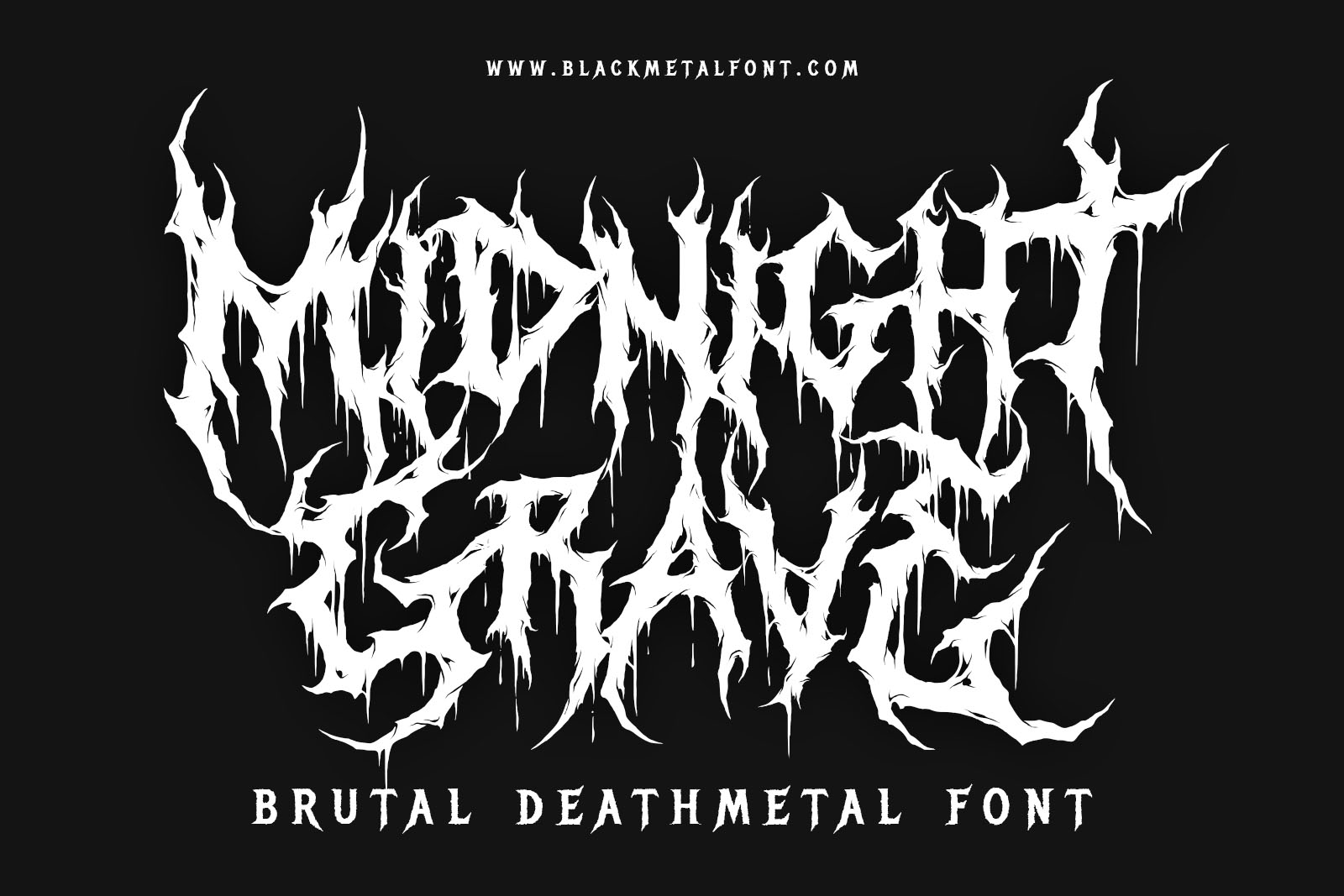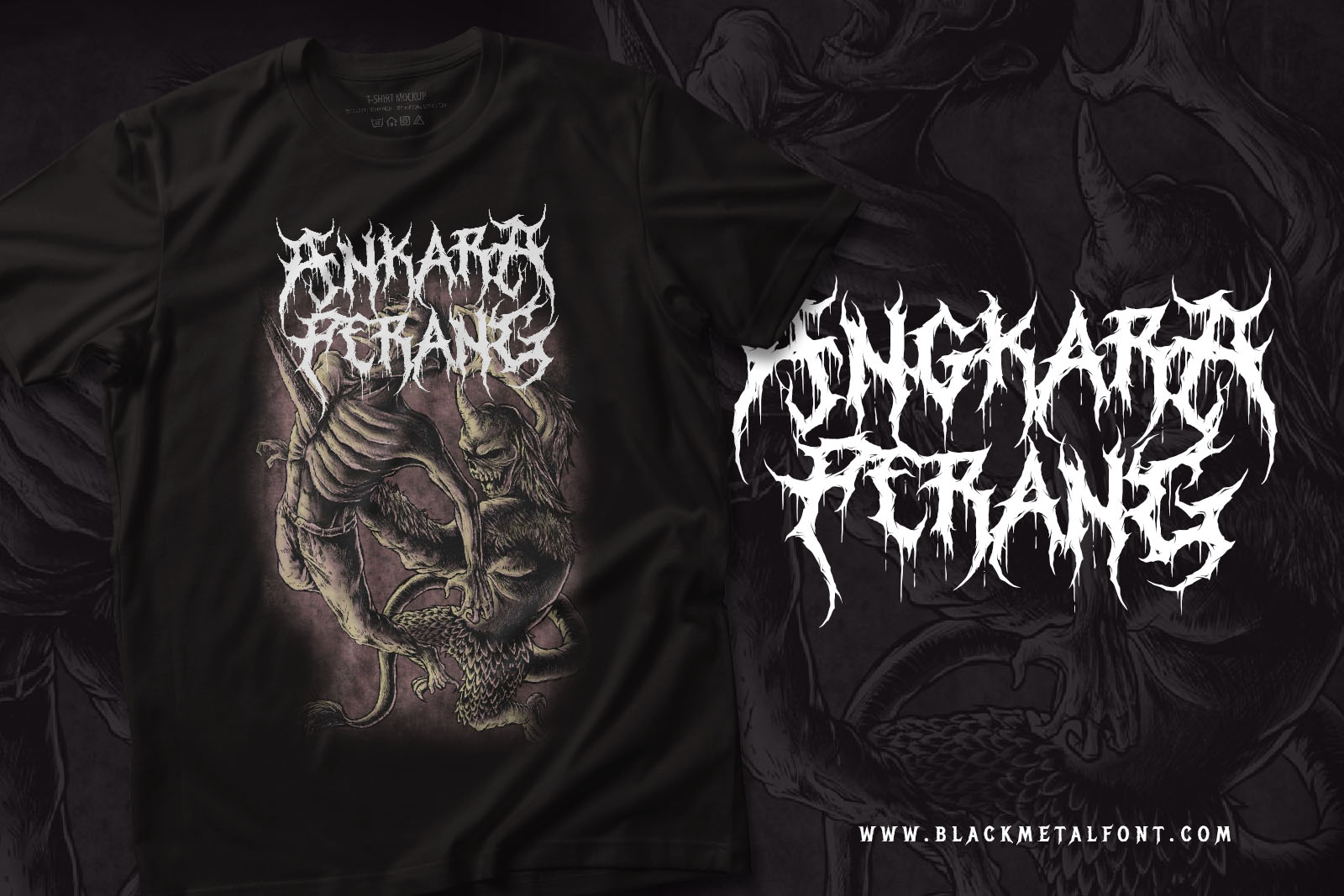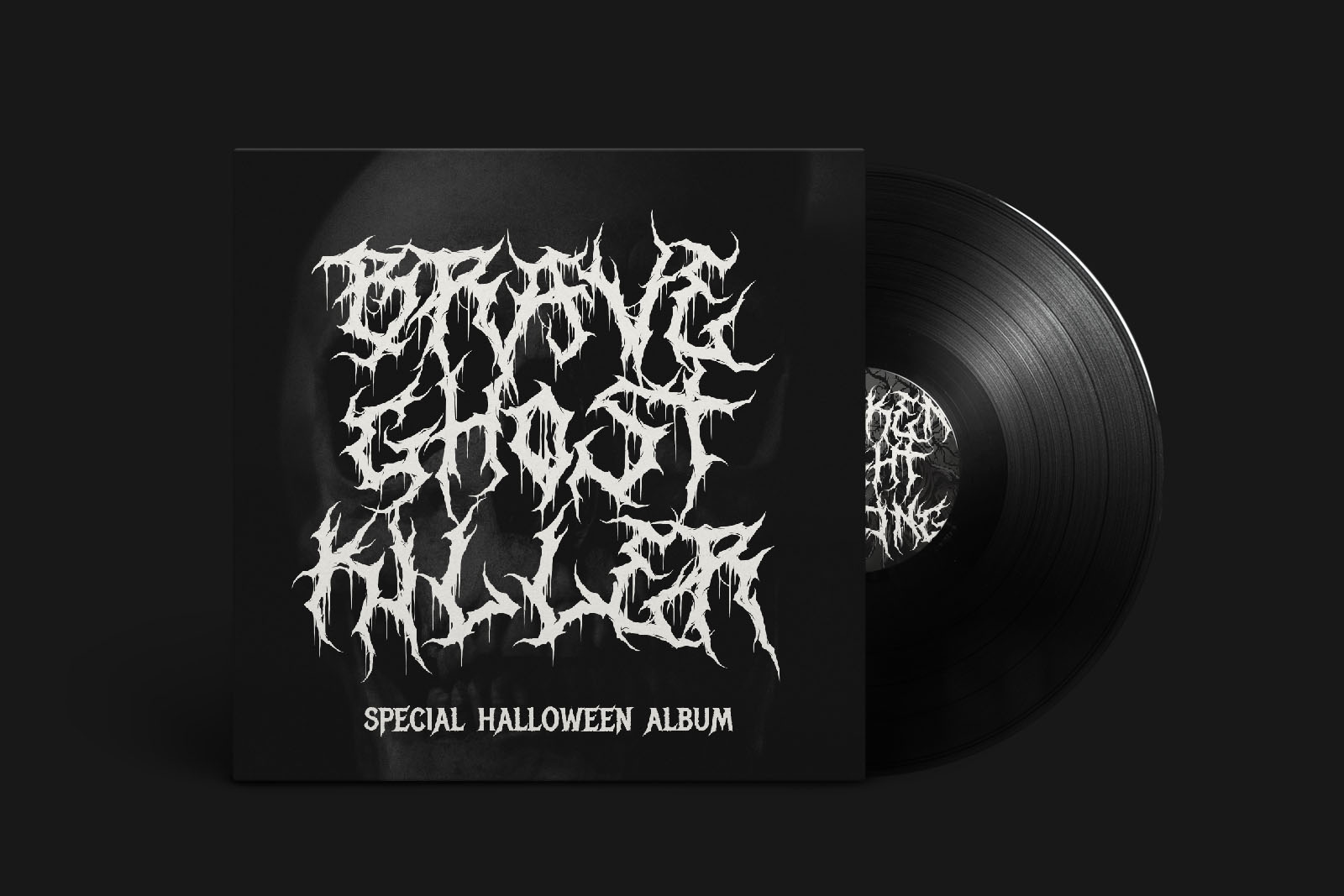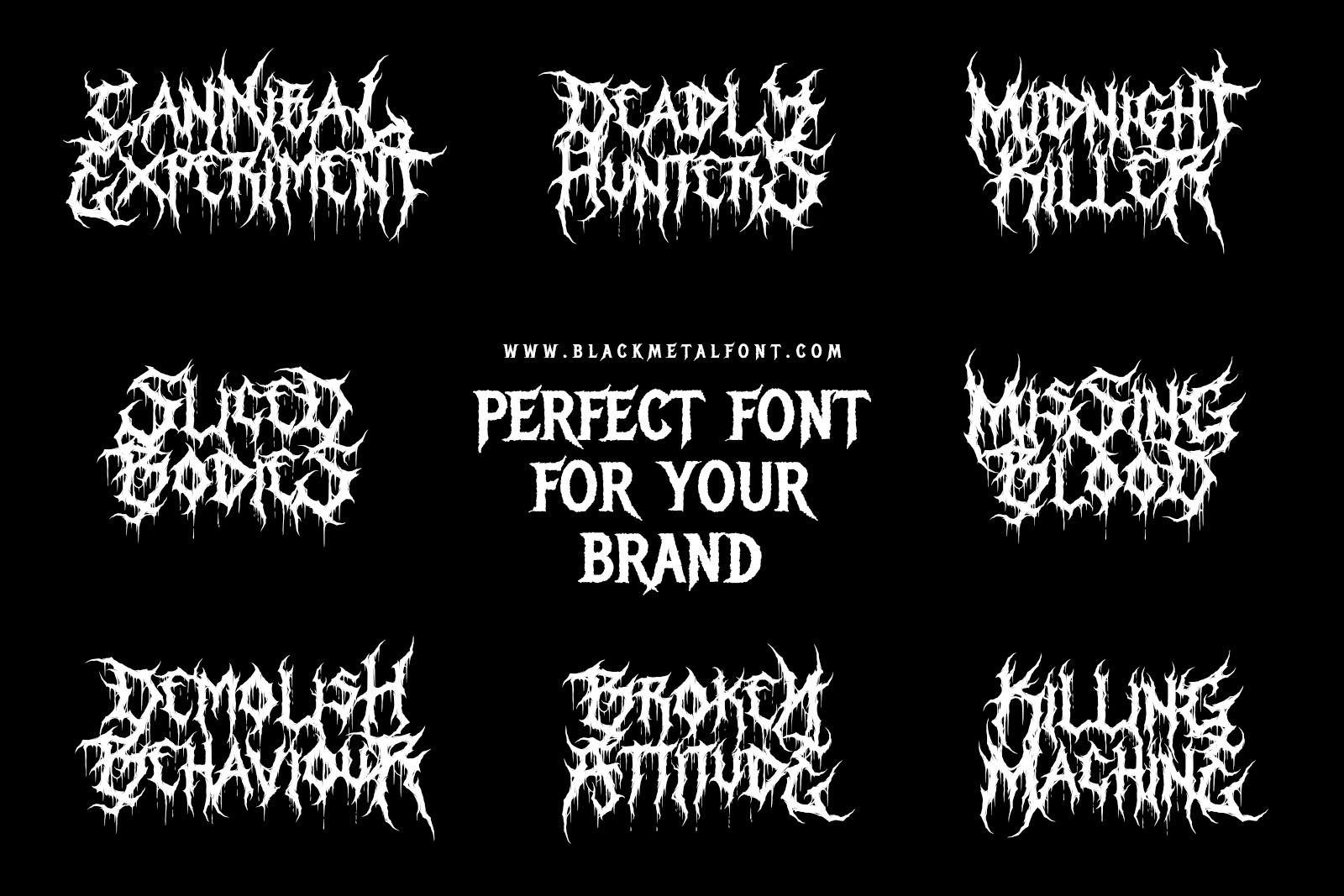
Midnight Grave gave my album artwork a heavier atmosphere. The font feels brutal, dark, and still readable enough for serious release graphics.
I used Midnight Grave for a band promo campaign. It instantly made the visual identity feel more underground and professional.
The details in Midnight Grave are excellent. It works really well for posters, merch previews, and dark music branding.
Midnight Grave looks powerful on shirt mockups. The letters have enough aggression without becoming impossible to read.
Midnight Grave feels perfect for extreme music logos. The shapes are sharp, dramatic, and very useful for custom lettering.
A very strong display font for dark projects. Midnight Grave helped the whole campaign feel more intense and memorable.
I tested Midnight Grave on a horror film concept poster. It gave the title a raw, frightening, and cinematic feeling.
Midnight Grave works beautifully for back prints and chest graphics. It has that authentic death metal look buyers expect.